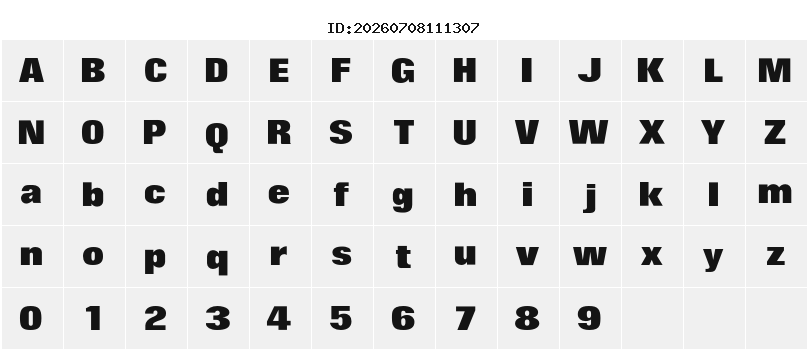
Dakota Preview
About Dakota.otf
Dakota.otf is a modern, elegant sans-serif font designed for ultimate readability and visual harmony. Perfect for branding, headlines, web design, and print materials.